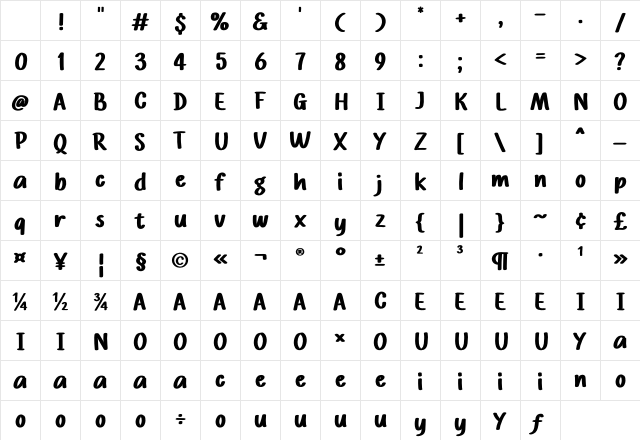
Complete Arnis Legend Regular glyph index. Displaying only characters natively supported by Arnis Legend Regular font.
Arnis Legend is a composed and adaptable typeface that performs quietly and consistently across a wide range of design contexts.